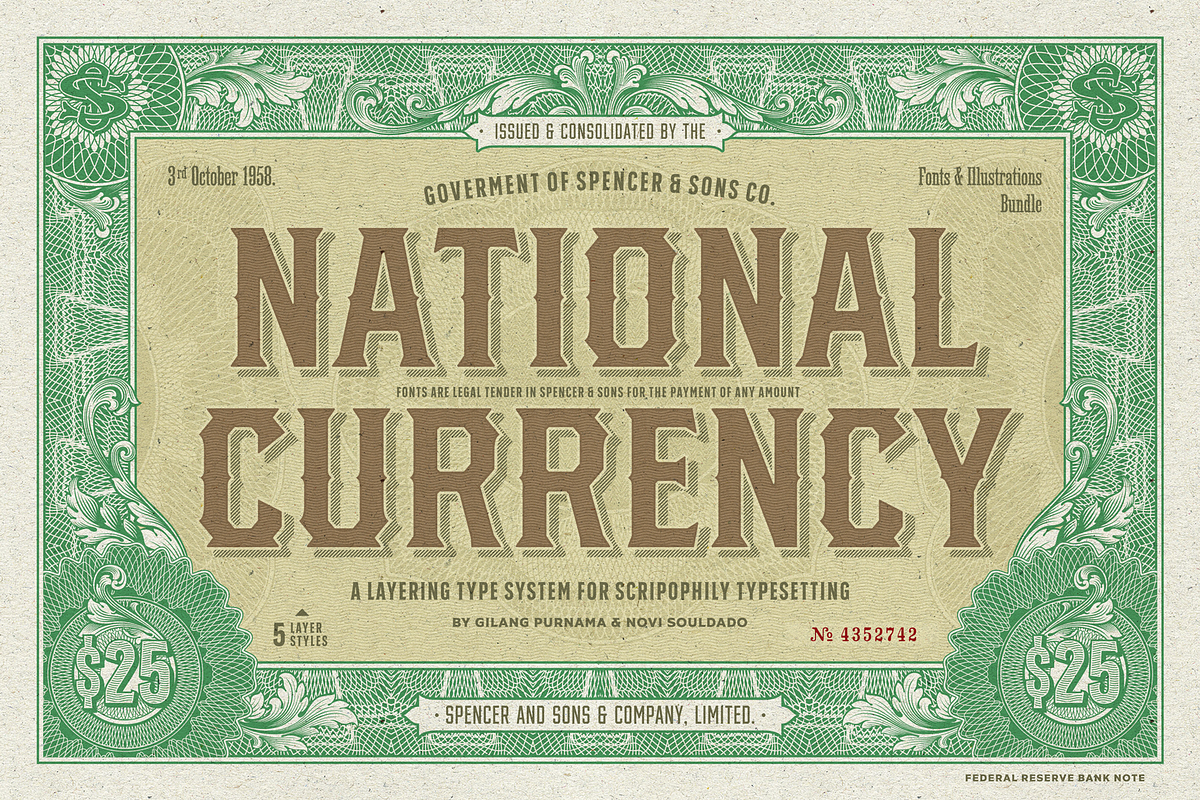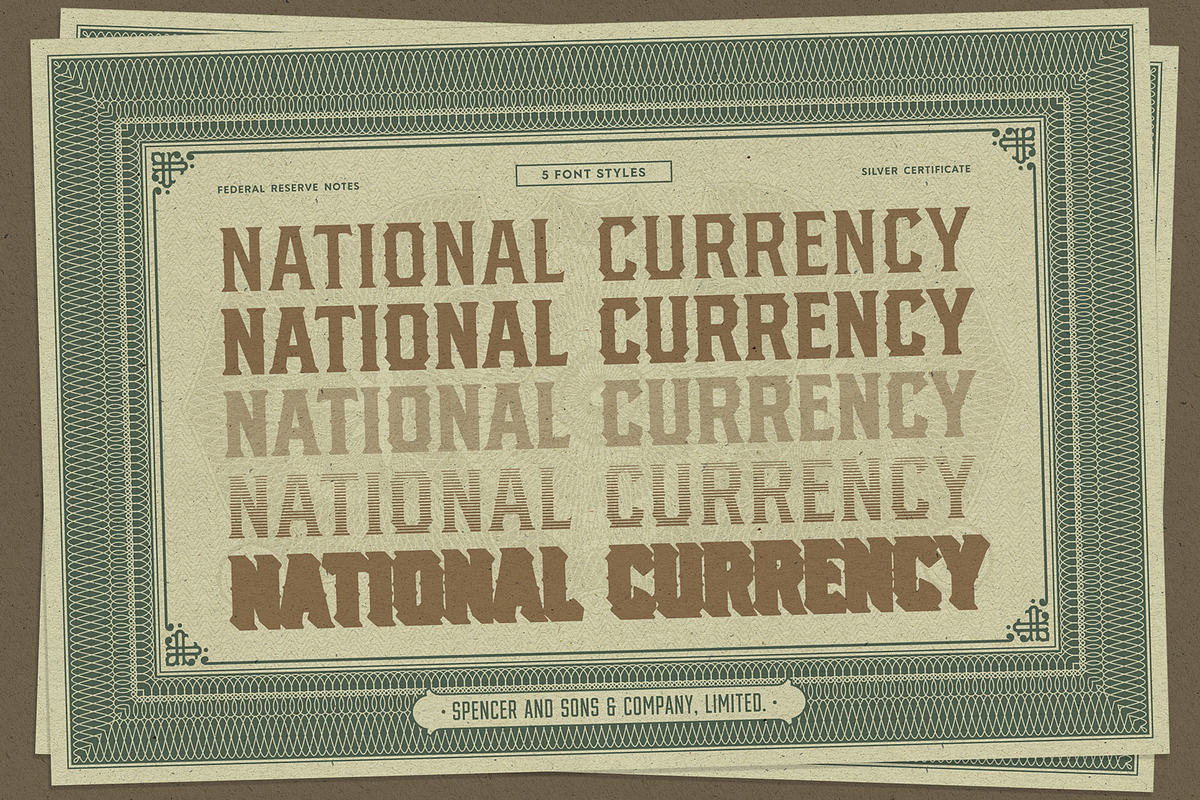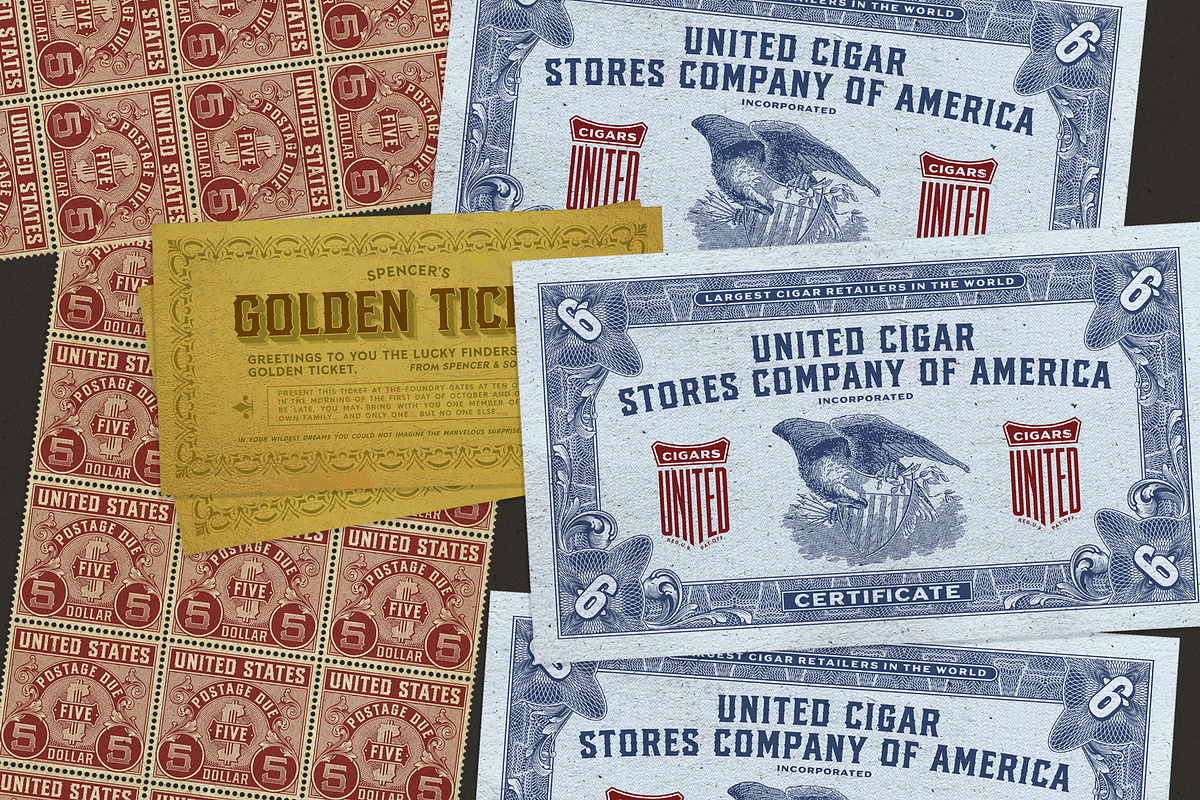
S&S National Currency Font Bundle
S&S NATIONAL CURRENCY FONT BUNDLE
This font was inspired by the lettering found on old stock certificate & lettering on U.S. currency. A massive collection of pretty much every geometric scrollwork patterns I've ever created, wrapped up in one neat package at a huge discount!
Most of the symbols are already refined and have an securities, vintage, decorative feel perfect for your piece of art. And don't forget the touch of Guilloche art which will make your masterpiece more authentic and add a really fascinating background effects to large print pieces, especially when additional coloring techniques like gradient and opacity are applied.
National Currency is an homage to the inventiveness, passion, and care of creator who proudly create the art not just sell it out. There is integrity, dedication, thoroughness of detail and hard work done for the optimal results.
This is a breath of fresh air after a cold winter. You can use in the most daring and interesting projects.
- S&S National Currency Regular
- S&S National Currency Bold
- S&S National Currency Bold Hatch
- S&S National Currency Inset
- S&S National Currency Shadow
This font is easy to use and will allow the designer plenty of exploratory features to create their own combinations. With the support of extra vector pack, it will certainly be more valuable with a very affordable price, This is one of the mandatory fonts that you must to collect for your graphic needs.